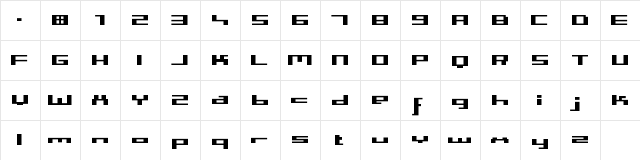
00ne Uninteresting Tech Regular
| Designer | neurone error |
Design Context for 00ne Uninteresting Tech Typeface
00ne Uninteresting Tech channels digital-age aesthetics through its sharp, structured letterforms — ideal for brands that want to signal innovation.
Pro Tip: Try 00ne Uninteresting Tech with generous letter-spacing in UI labels and navigation — the geometric forms benefit from room to breathe.